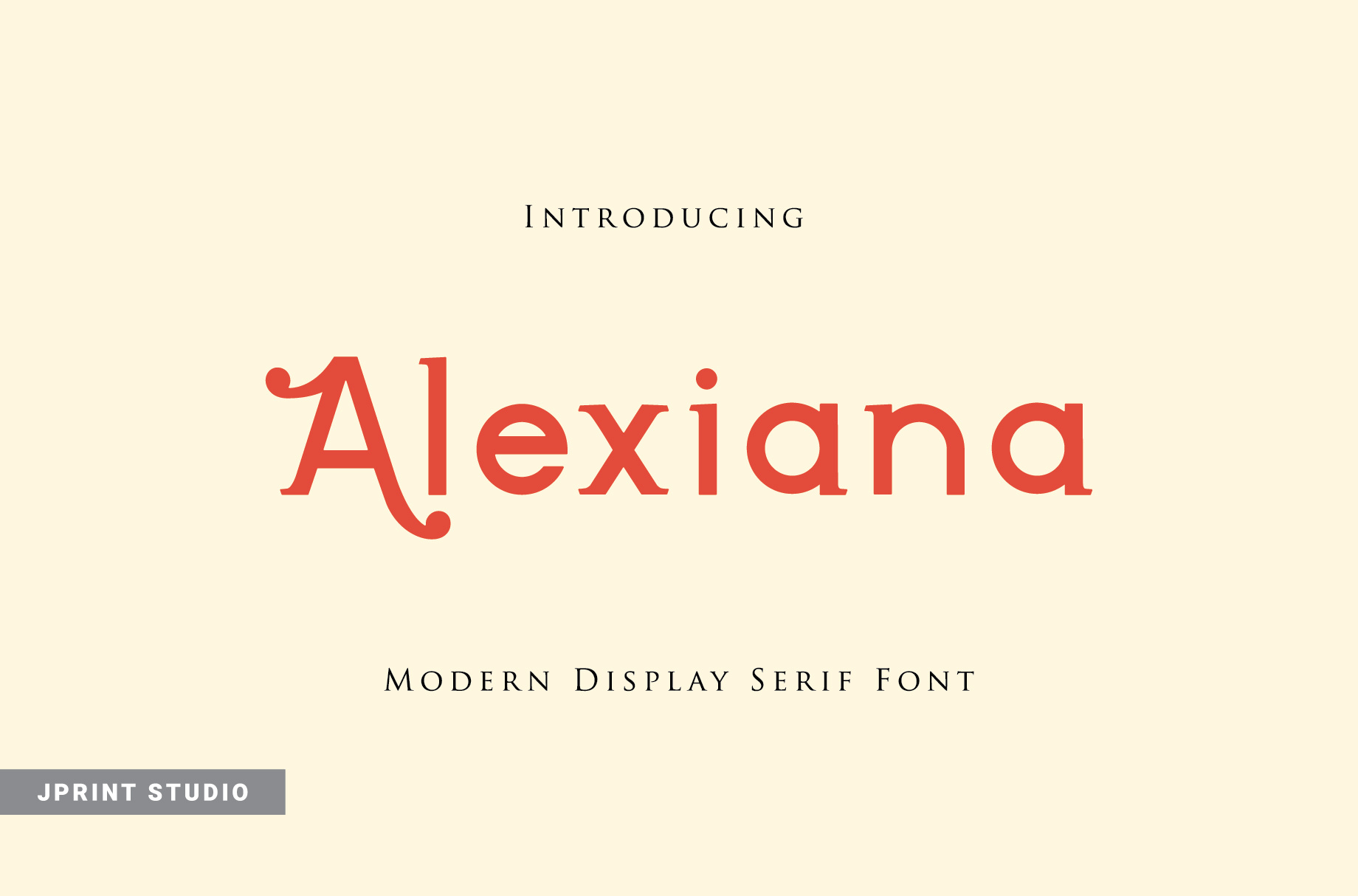
Alexiana Serif Font
Introducing Alexiana, a vibrant serif font that’s your portal to the golden era of typesetting. Imbued with a vintage allure, this typeface flawlessly merges yesteryear with the contemporary, infusing your content with an endearing dose of nostalgia. But make no mistake, Alexiana is not merely a retro redux. Its modern, bold alternatives, perfectly balanced with unique ligatures, add an unforeseen pinch of delight to your design palette. Experiment, customize, and let your artistry burst into life in a genuinely unique manner with the versatile Alexiana.